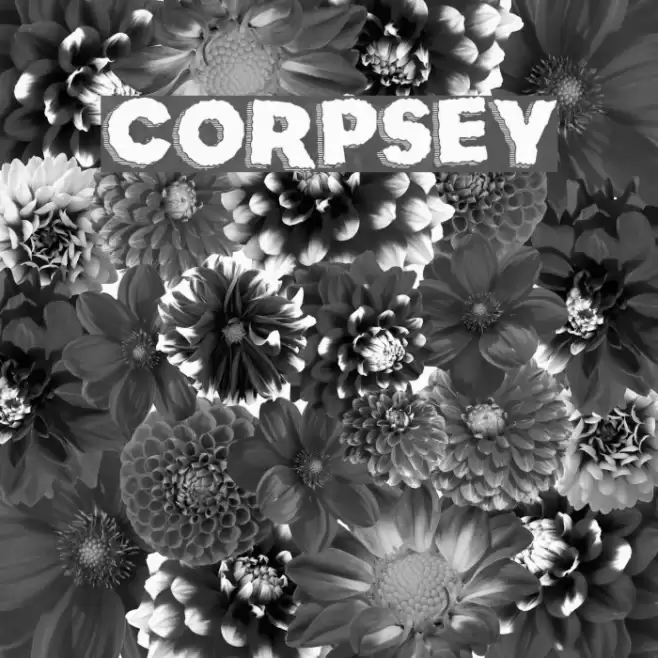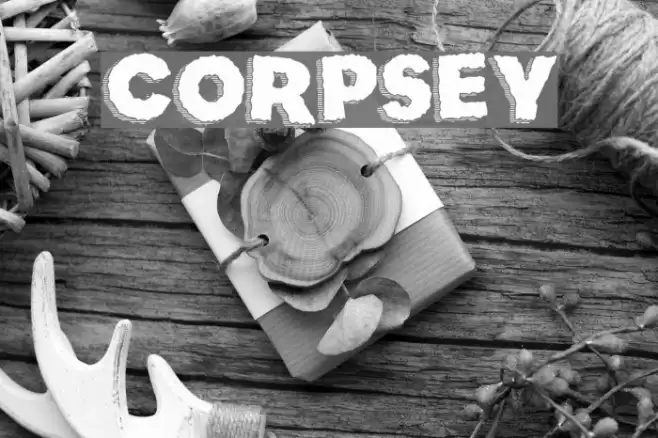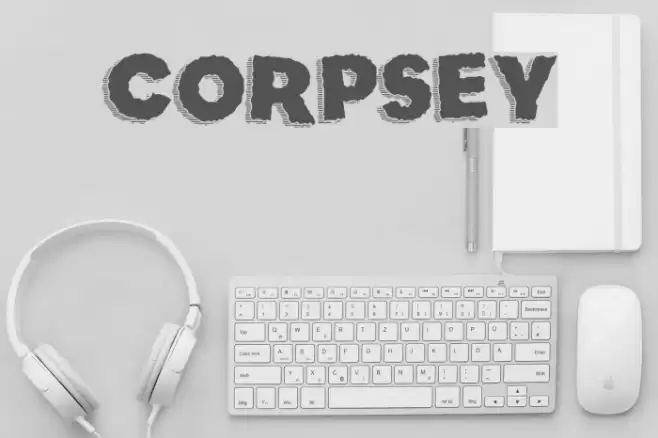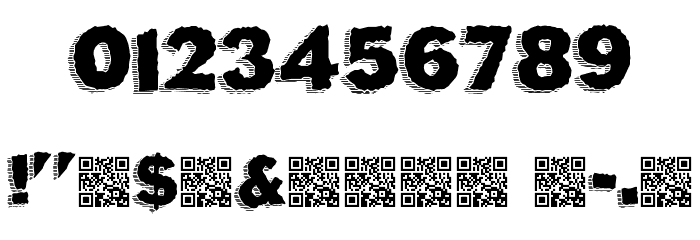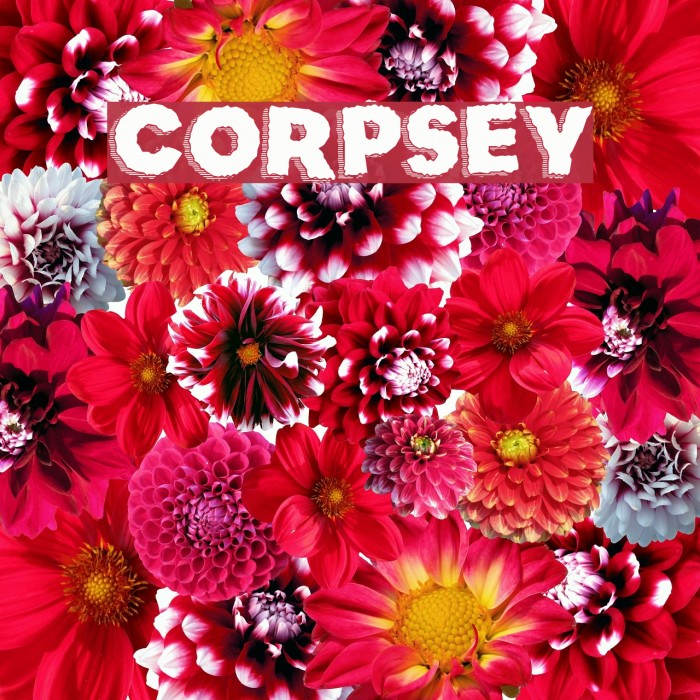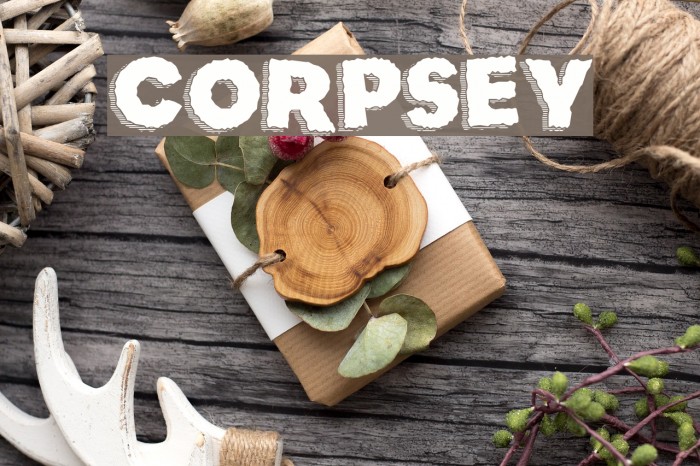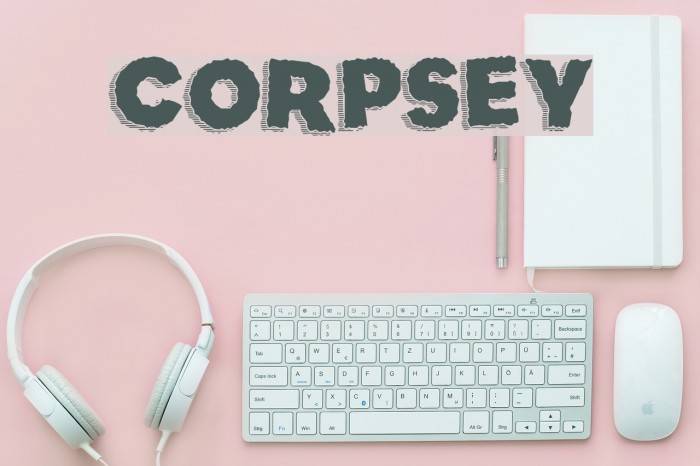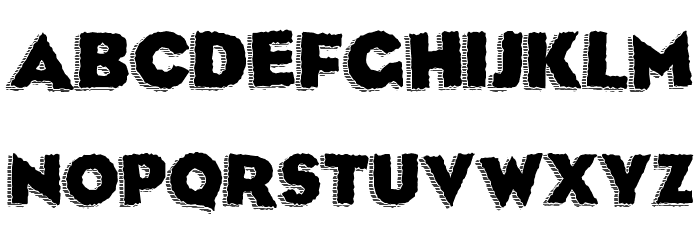
Corpsey Font
Corpsey Description
This font features a bold and playful design with a textured, hand-drawn appearance. The letters are thick and exhibit a rough, uneven edge that gives them a dynamic and energetic feel. The style is reminiscent of chalk or crayon drawings, adding a whimsical and informal touch. The uppercase and lowercase letters maintain a consistent weight, while the numbers and special characters follow the same playful aesthetic. This font is ideal for projects that require a fun and eye-catching display.
A bold, textured font with a playful, hand-drawn style from Distorted Eroded fonts.
- Proposed Projects: Perfect for children's book covers, playful posters, party invitations, and creative branding.
- Overall Style: Playful, Whimsical
- Use Case: Headlines, Posters, Branding